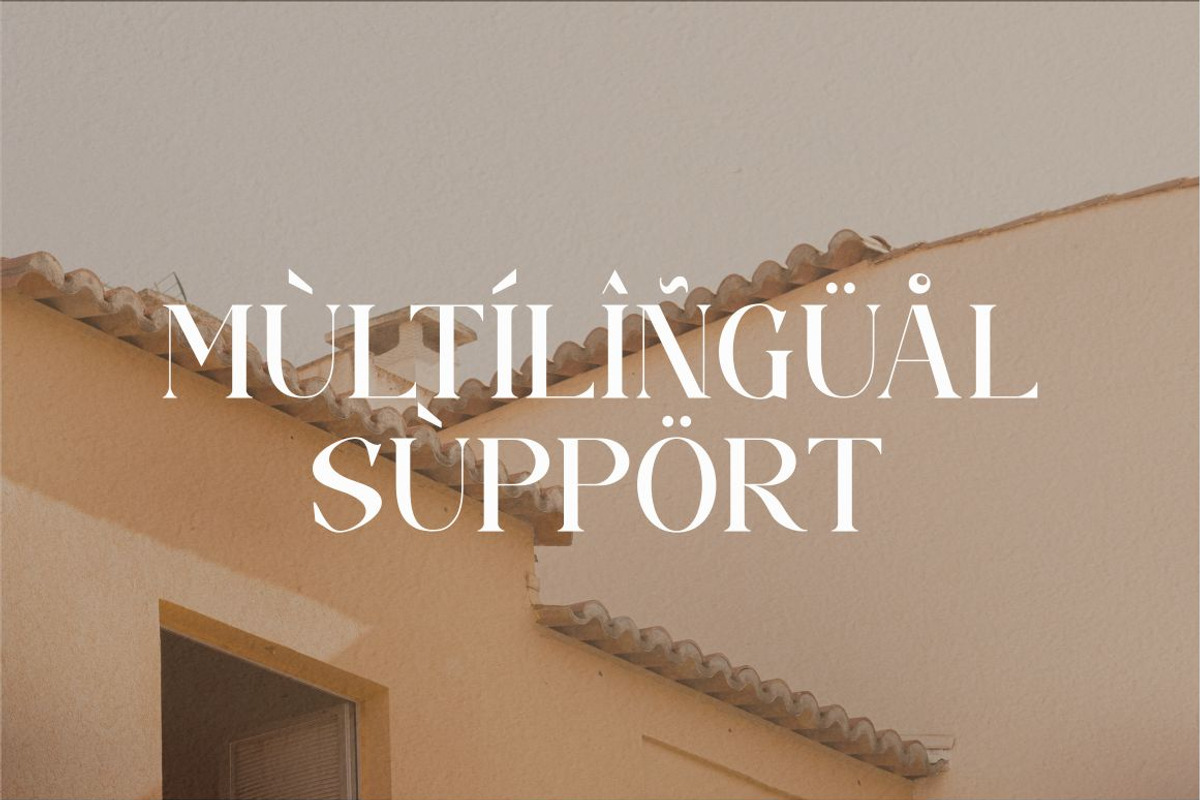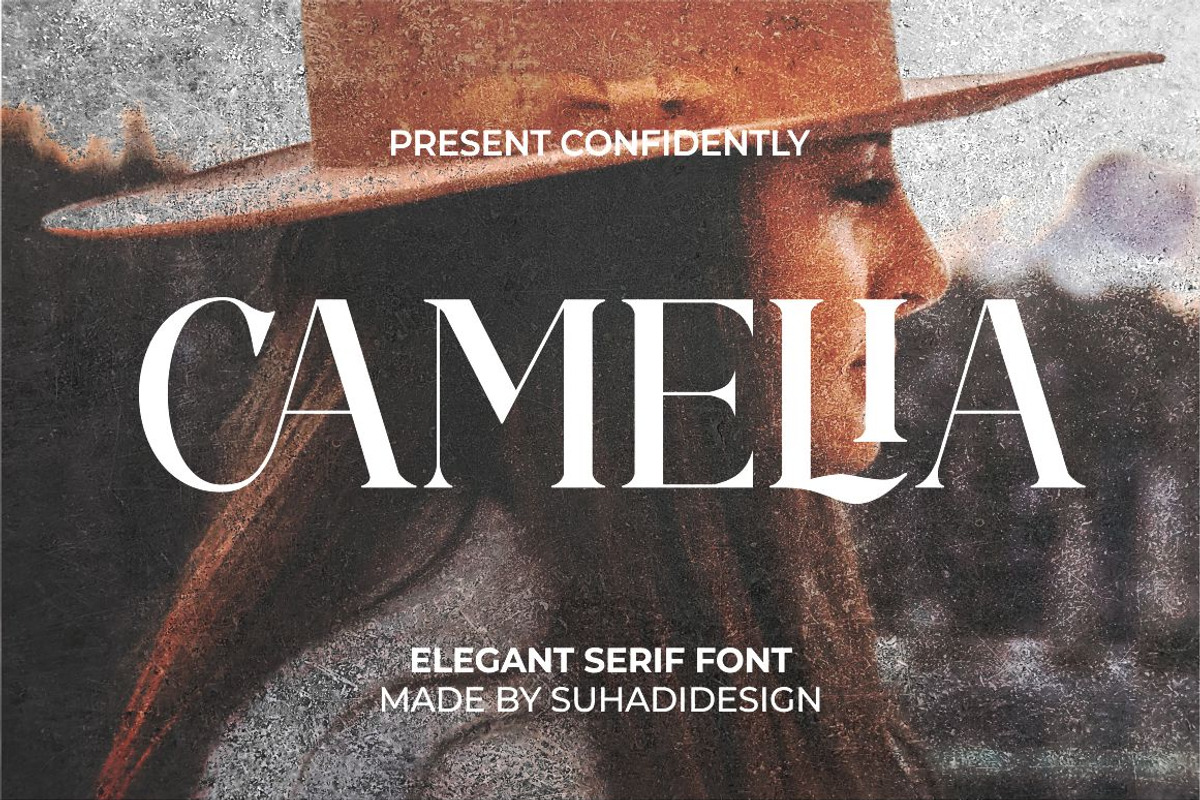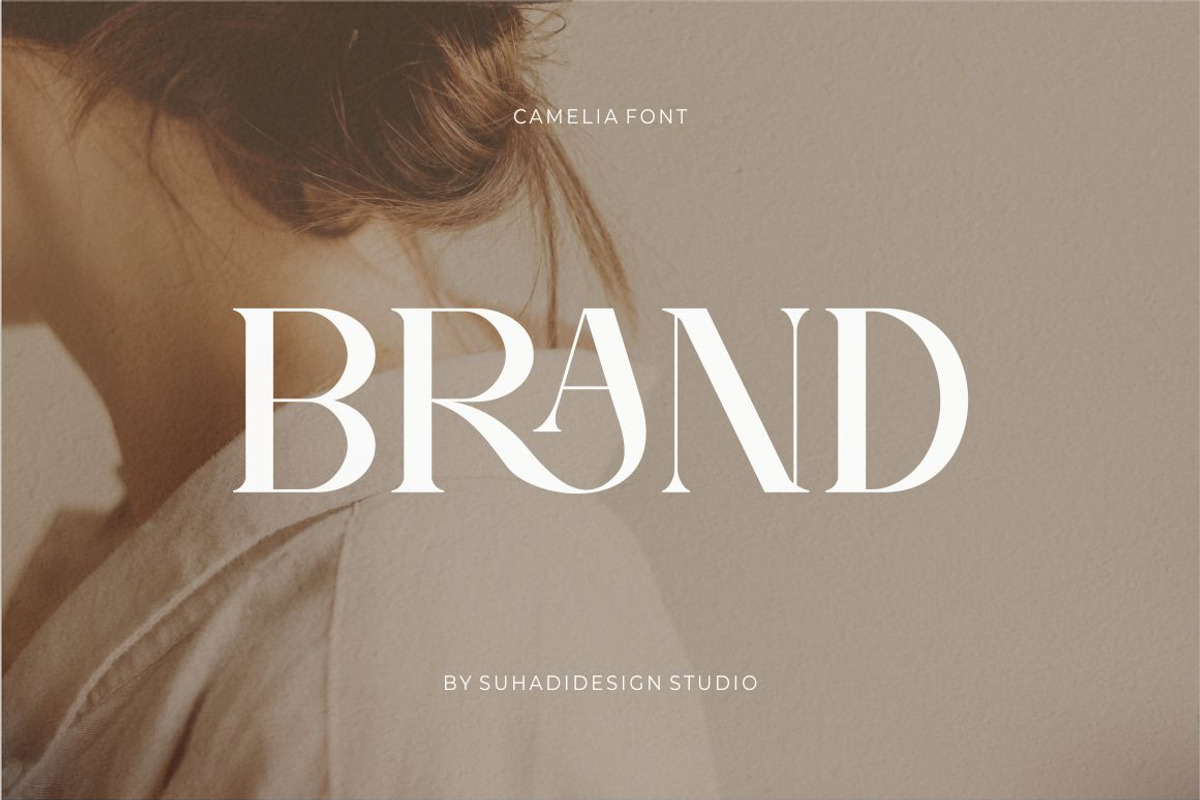
Camelia elegant serif font
Hi ladies and gentlemen! The latest elegant font release has come, which is the font that is in the sights of these ladies and gentlemen. Namely the Camelia font. The Camelia font is a very pretty and handsome serif font. comes with a modern elegant style to become a market favorite. We keep this font looking elegant, classy, easy to read, stylish, attractive and easy to use. Camelia Font is the right choice for brands, brand names, business cards, modern, magazines, classy designs, retro designs, newspapers, books, branding, weddings, and other projects. The Camelia font is here to enhance the quality of your designs.
Feature:
• All Uppercase letters • Multilingual Support • Numerical • Punctuation • Ligature collections